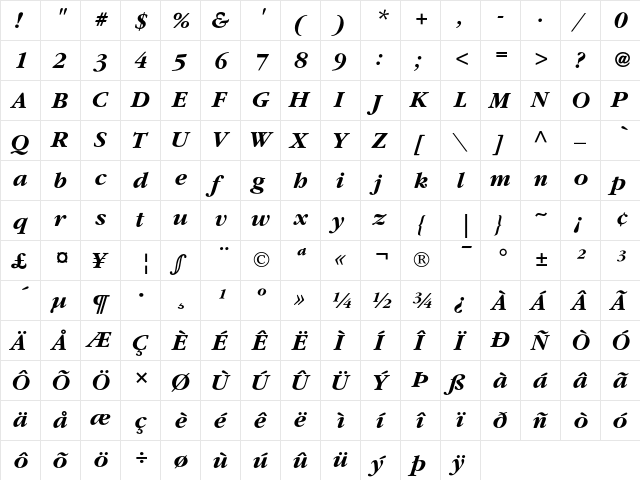
ITC Garamond Bold Italic
Design Context for ITC Garamond Typeface
ITC Garamond is a composed and adaptable typeface that performs quietly and consistently across a wide range of design contexts. The dynamic lean of this cut emphasises speed and emphasis in any layout. Its bold stroke weight gives it real presence on the page.
Pro Tip: Use ITC Garamond for emphasis, pull quotes, and subheadings where its slanted energy can add rhythm to the layout.